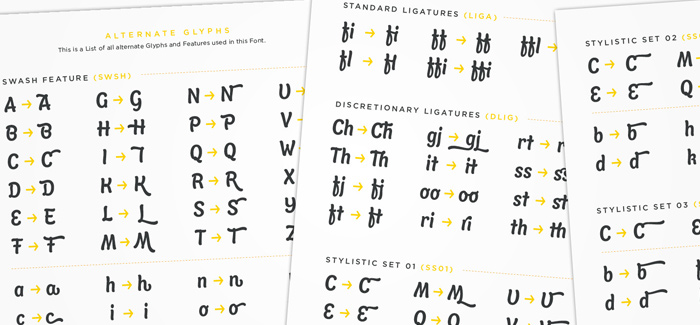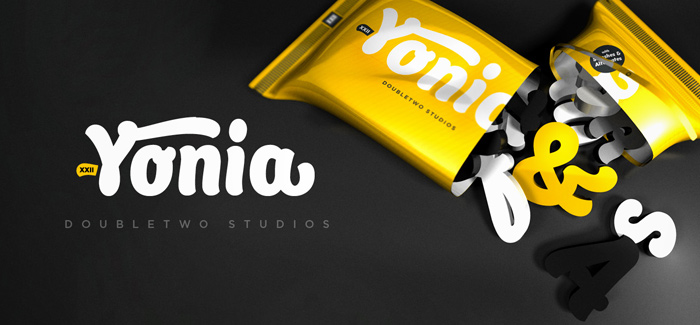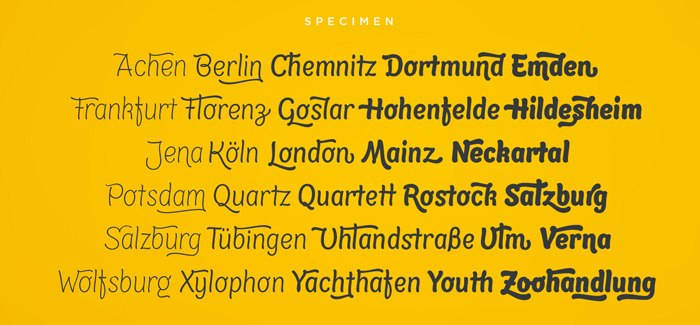
Yonia font
Yonia font is a brush script-like font by Doubletwo Studios. Its skeleton is very similar to slightly condensed sans-serif face but in Yonia traditional geometric outlines are replaced with elegant brush strokes so it is most likely a hybrid face – we don’t even see the traditional for brush scripts letter connections. Their absence is very original effect and combined with increased x-height logically result in unique typeface with excellent readability in all weights and sizes. Yonia with its rounded nice letterforms is packaging best friend – use it for food packs, labels, toy packaging etc as well as for posters, t-shirts and of course – logos. In addition you will find as many options as you could think of: for alternates, swashes and ligatures which will ease your work and lift your design to a higher level. Yonia has excellent performance both on print and screen media and it’s a dream-come-true if you use it for letterpress. It is designed in 5 weights and it also supports a large set of ampersands and catch words. Excellent job by Doubletwo Studios.